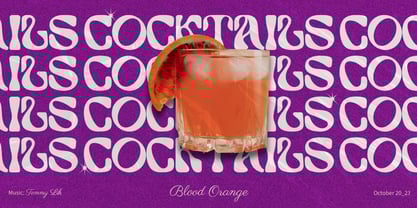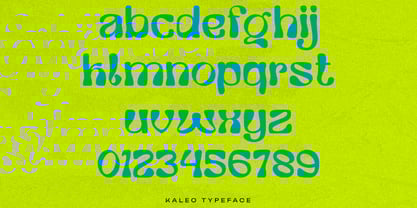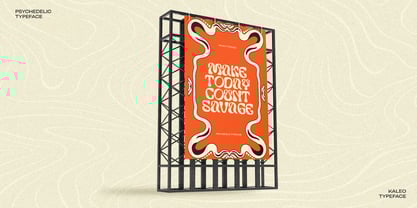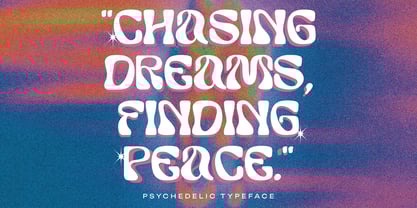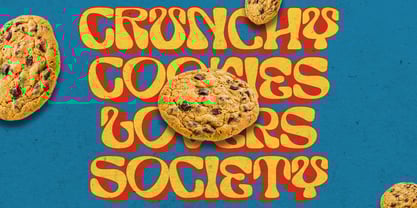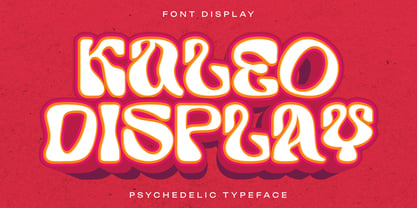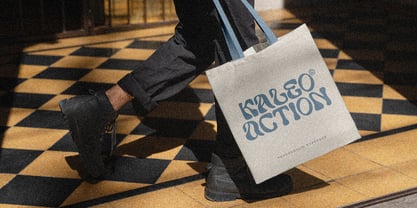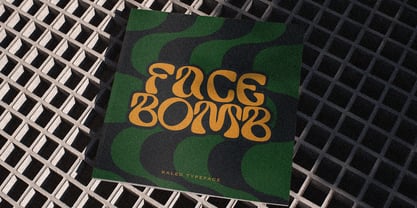
Kaleo
by Inviline
The Kaleo Font Family was designed by Virgiawan Listanto and published by Inviline. Kaleo contains 1 styles.
Kaleo Display is a psychedelic-inspired typeface designed to spark joy, nostalgia, and playful energy in your visuals. With its chunky curves, warped stems, and groovy personality, Kaleo brings back the colorful charm of the 70s with a modern flair. This font includes uppercase, lowercase, numbers, punctuations, alternates, and multilingual characters — all crafted to give your design a trippy and dynamic rhythm. Perfect for poster designs, vintage-inspired branding, retro packaging, music festival identities, bold quotes, album covers, fashion projects, and anything that calls for bold and expressive lettering with a fun soul. Whether you're creating a campaign full of personality or simply need a standout headline, Kaleo Display delivers eye-catching results across digital and print.
Kaleo